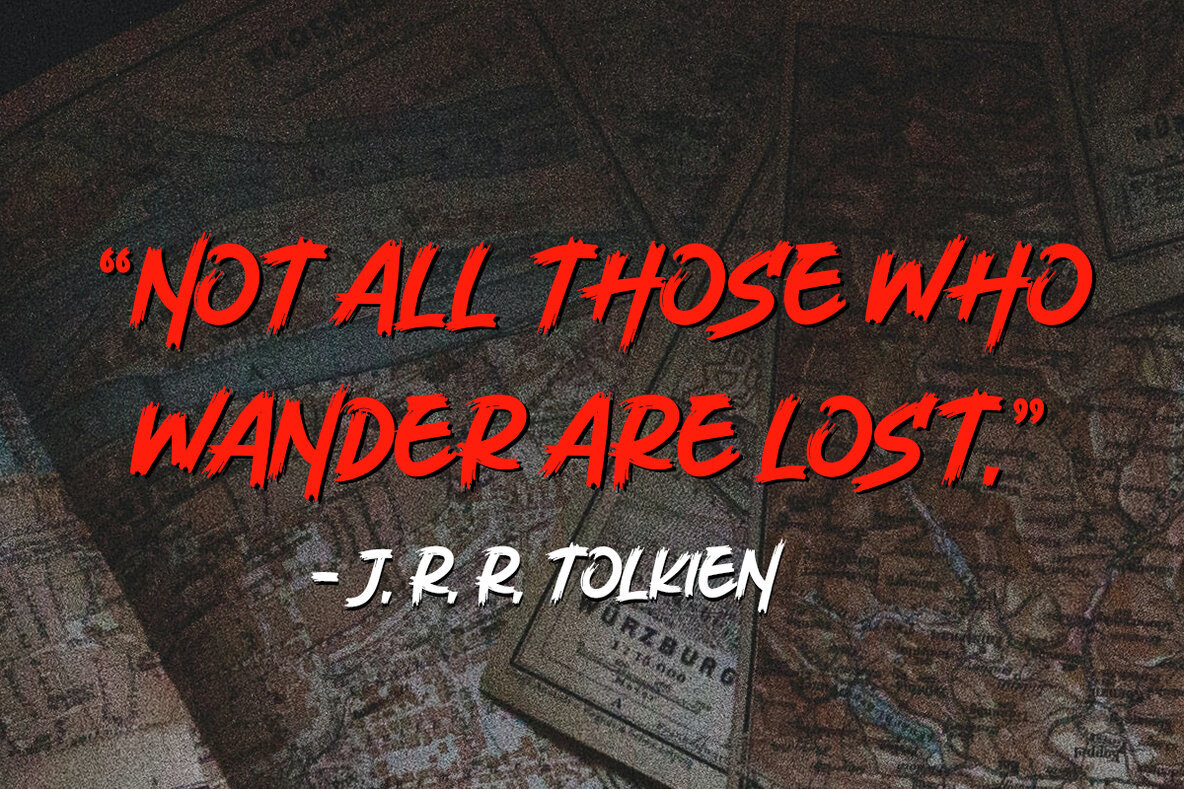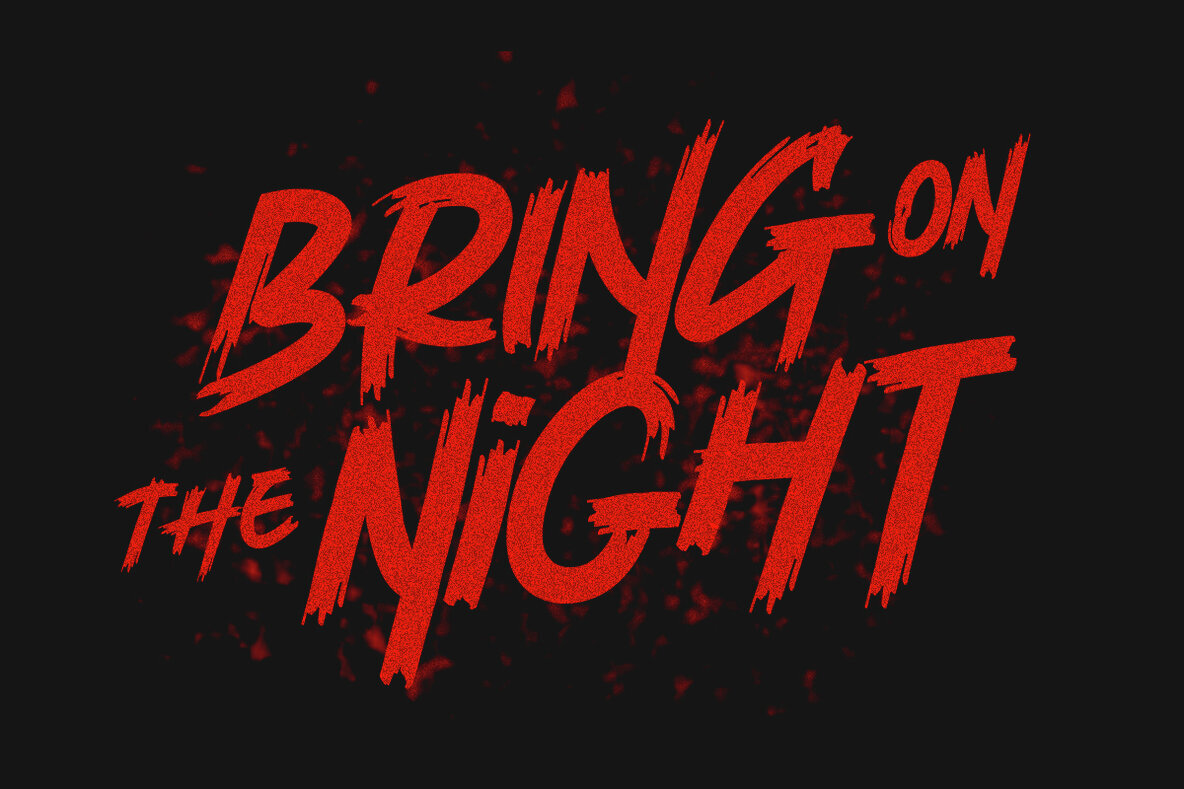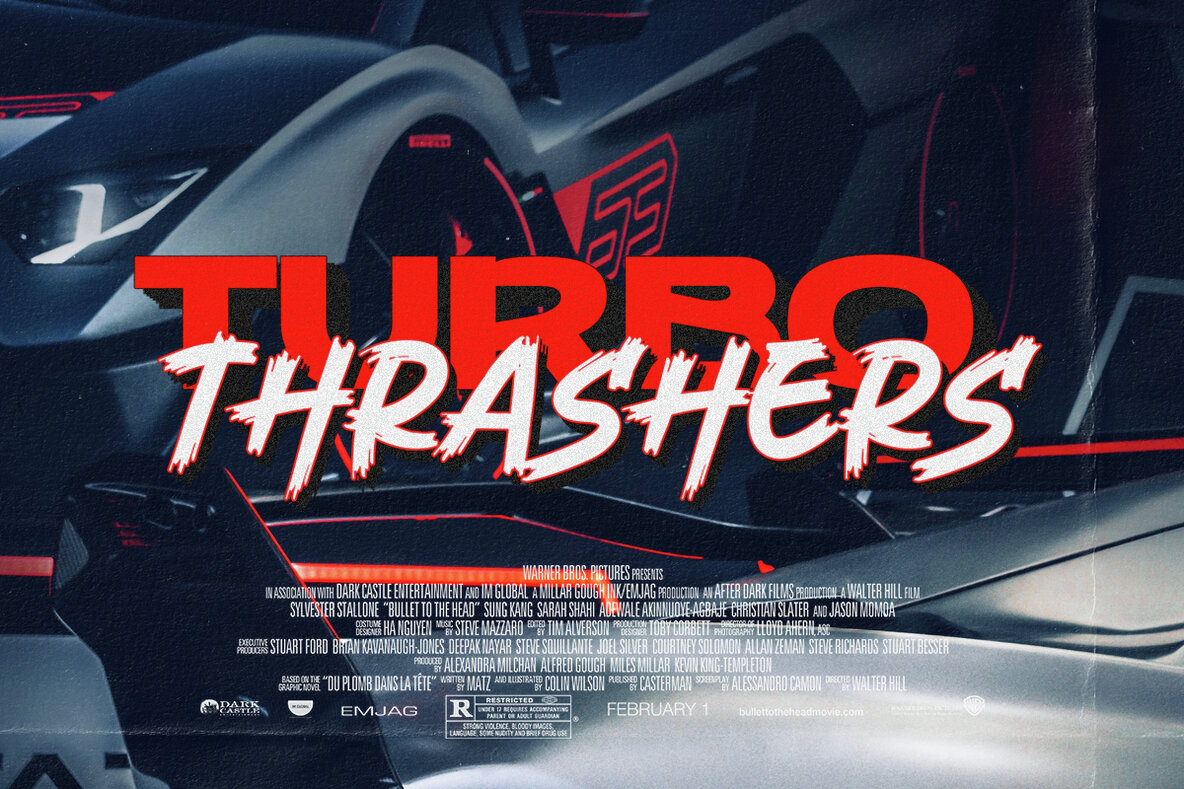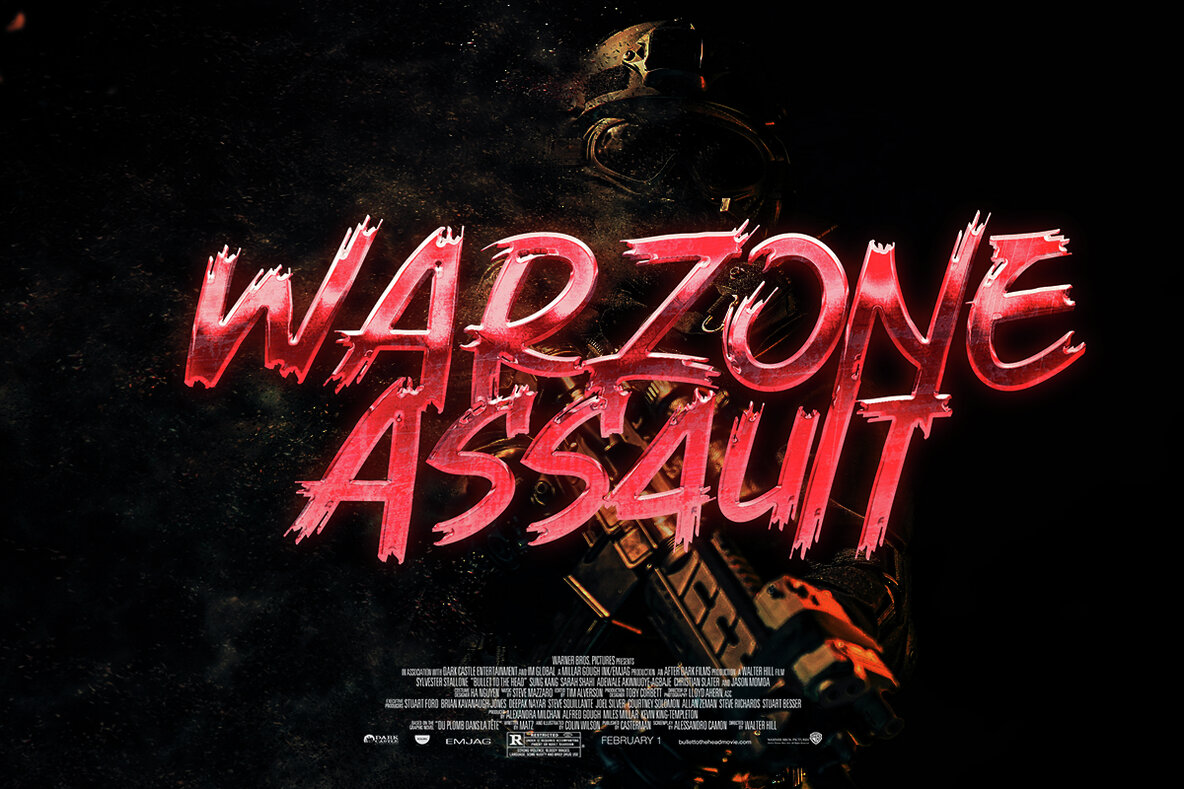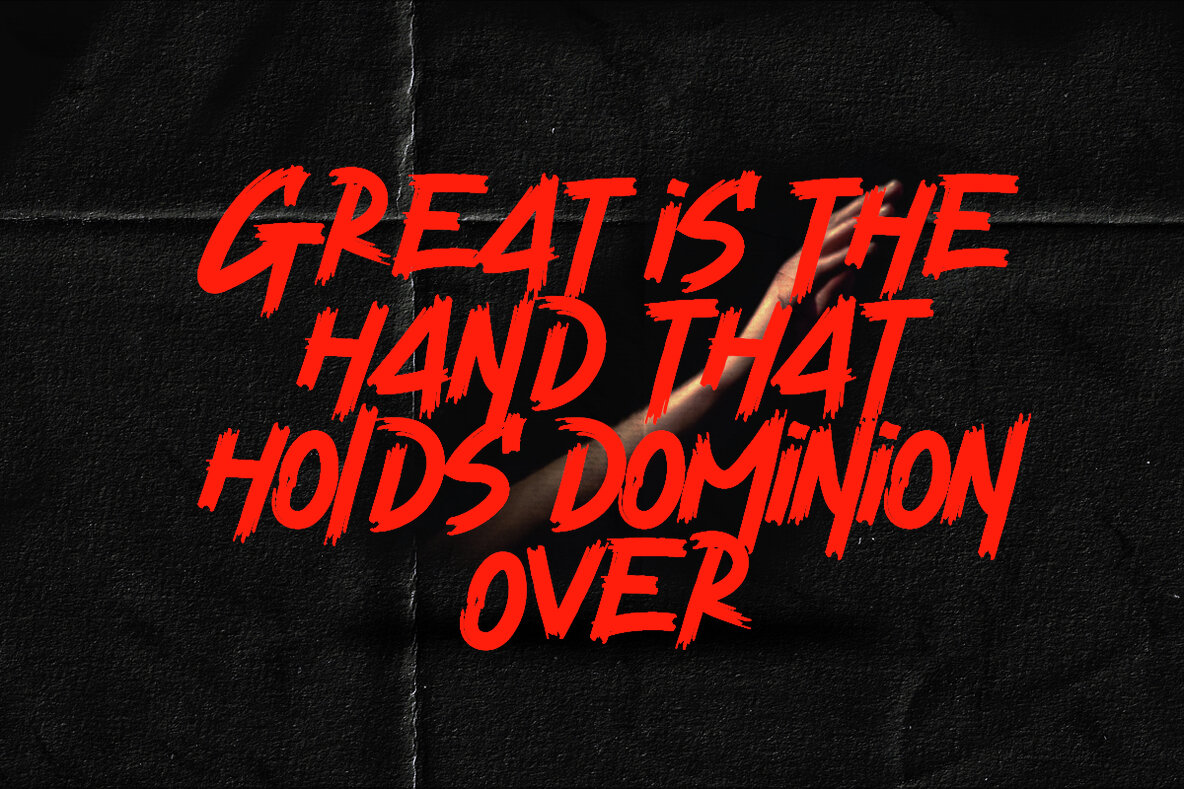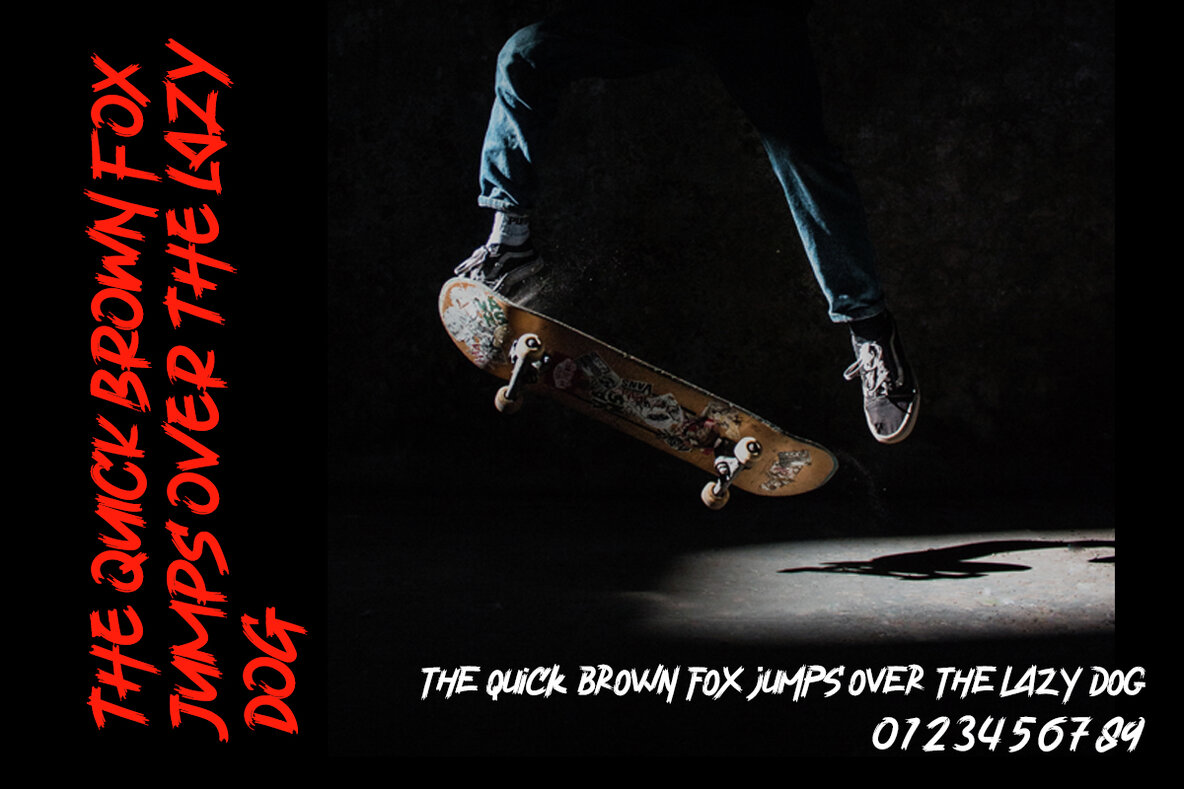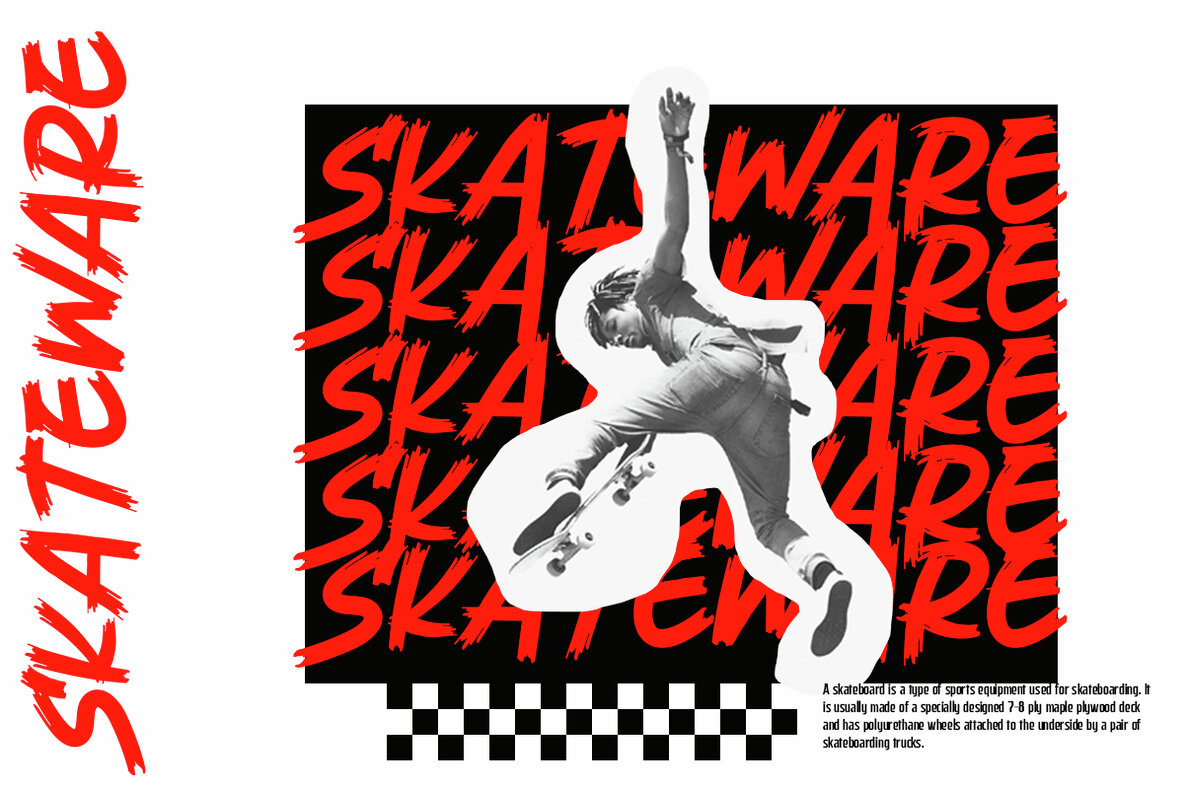
Velocity Vipers Font
Velocity Vipers
Experience the authentic style of Velocity Vipers, a handwriting brush effect and sans font that brings a real and vibrant touch to your projects. Inspired by urban influences and contemporary branding, this font is ideal for a variety of uses, including logos, branding, photography, invitations, watermarks, advertisements, product designs, stationery, wedding designs, labels, product packaging, and special events needing a personal handwritten feel. Velocity Vipers includes optional swashes for certain lowercase characters and supports multiple languages. These features are easily accessible through OpenType settings in software like Photoshop or Illustrator. If you have any questions, please feel free to contact us.Velocity Vipers: Handwriting Brush and Sans Font